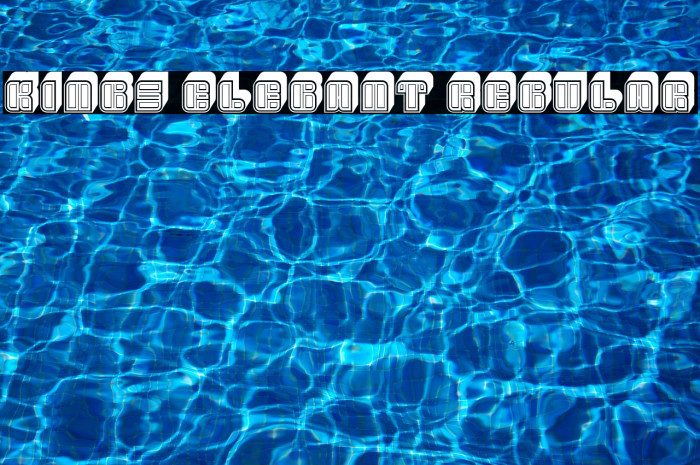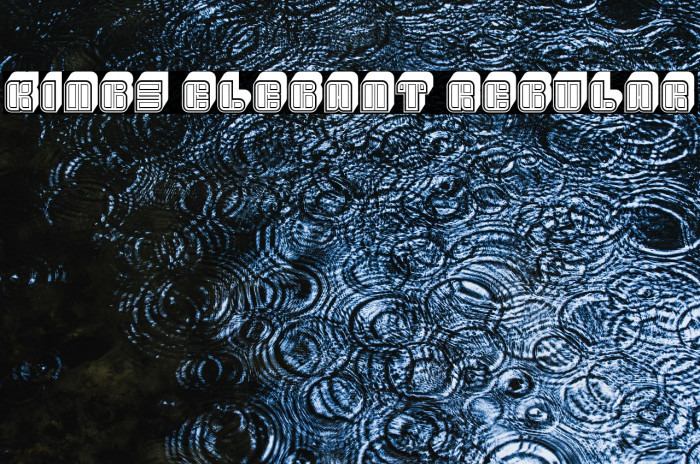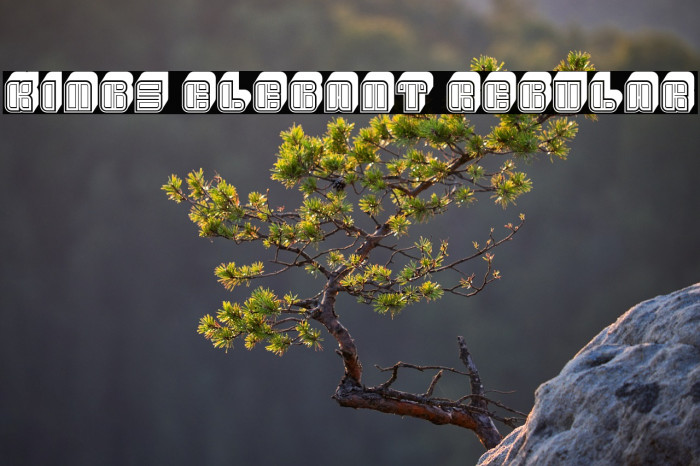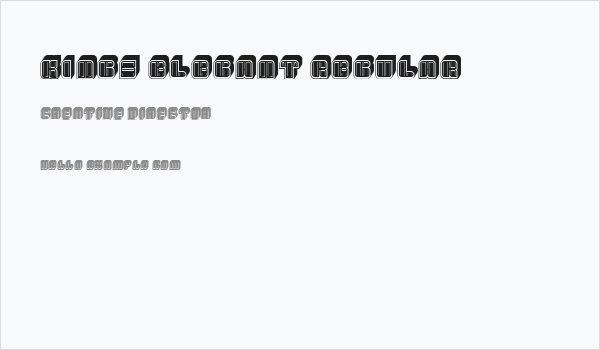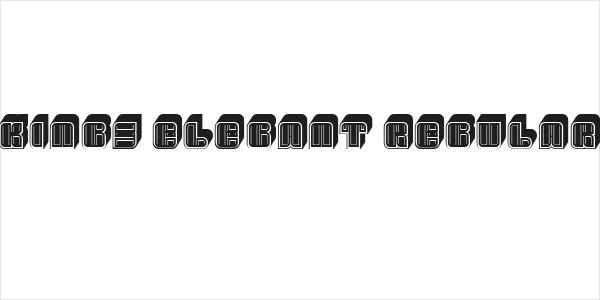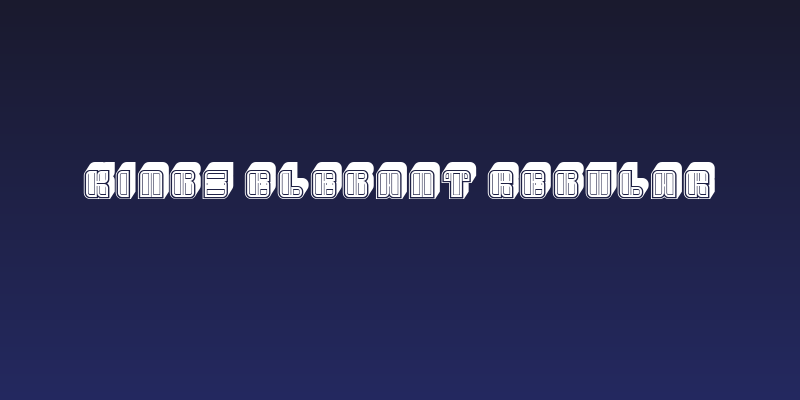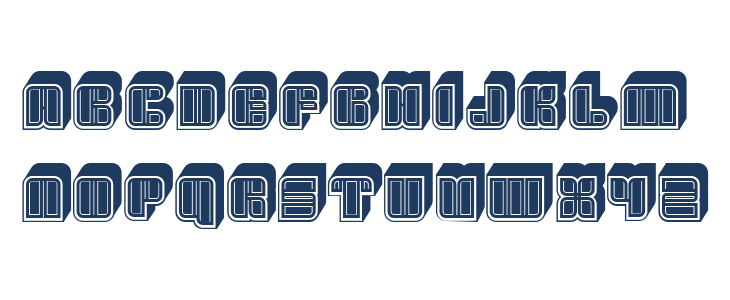
Kings Elegant Regular Font
Kings Elegant Regular Description
This font features a bold, geometric design with a strong presence. Each character is enclosed in a thick outline, creating a striking contrast between the inner and outer spaces. The letters are constructed with a series of parallel lines, giving them a layered, three-dimensional appearance. The overall style is modern and futuristic, with a decorative flair that makes it stand out. The characters are uniformly wide, contributing to a consistent and balanced look across the typeface. This font is ideal for projects that require a bold statement and a unique visual impact.
| Proposed Projects | Ideal for headlines, posters, branding, and any design that requires a bold, eye-catching typeface. |